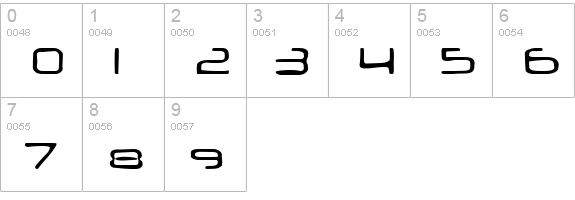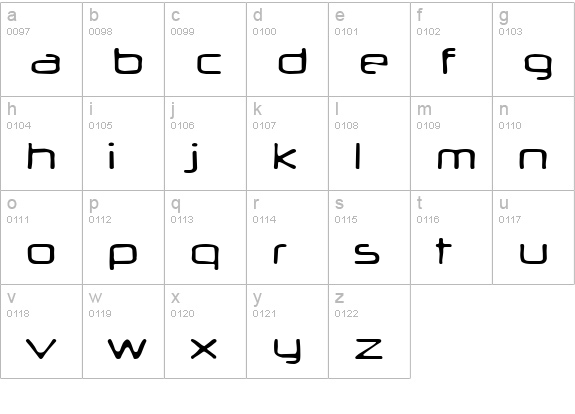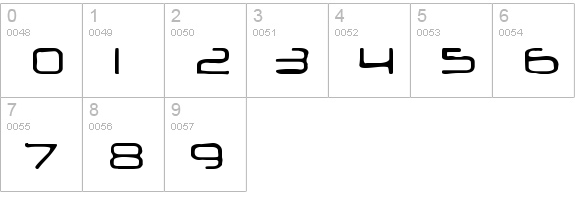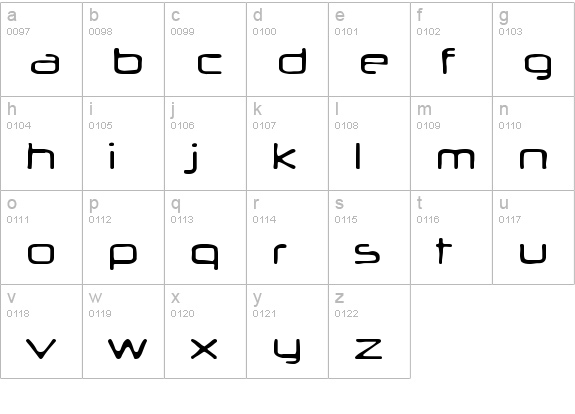
Neuropol X Burn Font Details
Neuropol X Burn is a striking and futuristic font that exudes a sense of energy and modernity. Its sharp angles and sleek design make it perfect for projects that require a bold and edgy look. The font is versatile and can be used for a variety of design purposes, from branding to posters to websites. What makes Neuropol X Burn even more appealing is that it is available for free download at FontsMarket.com. This means that you can easily access this eye-catching font without any cost, making it a valuable addition to your font library. Whether you are a designer looking to add a unique touch to your projects or a creative individual seeking to make a statement, Neuropol X Burn is the perfect choice. Download it today and unleash your creativity with this dynamic and free font.